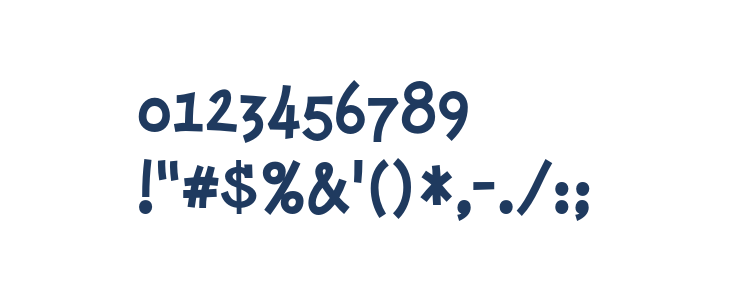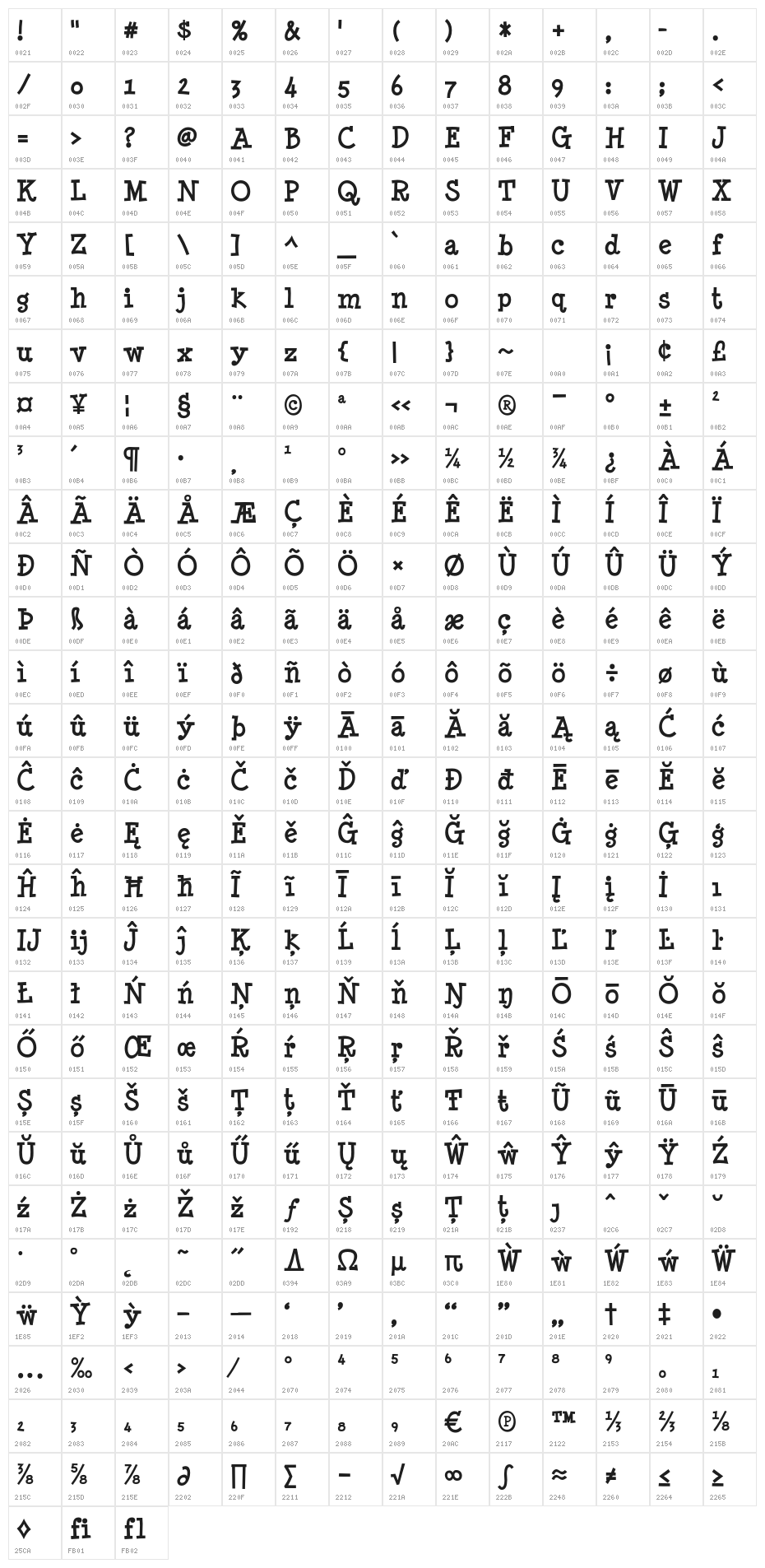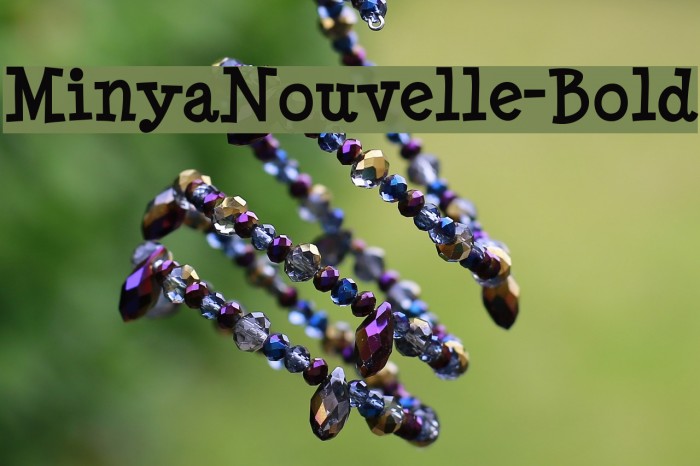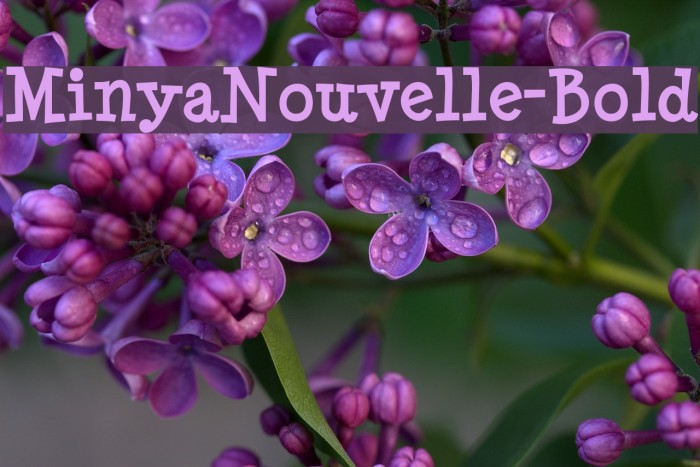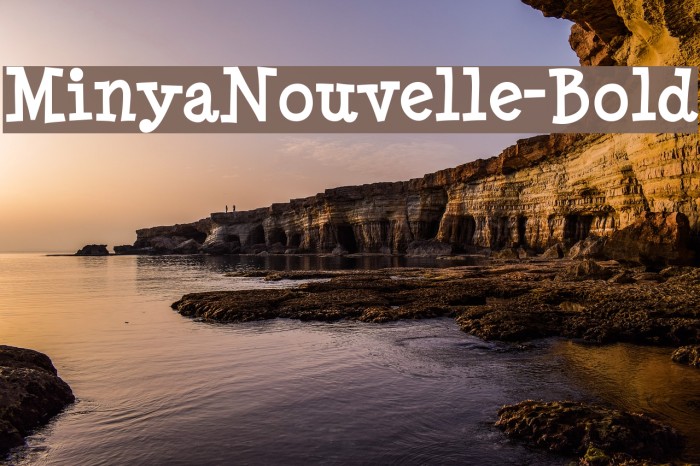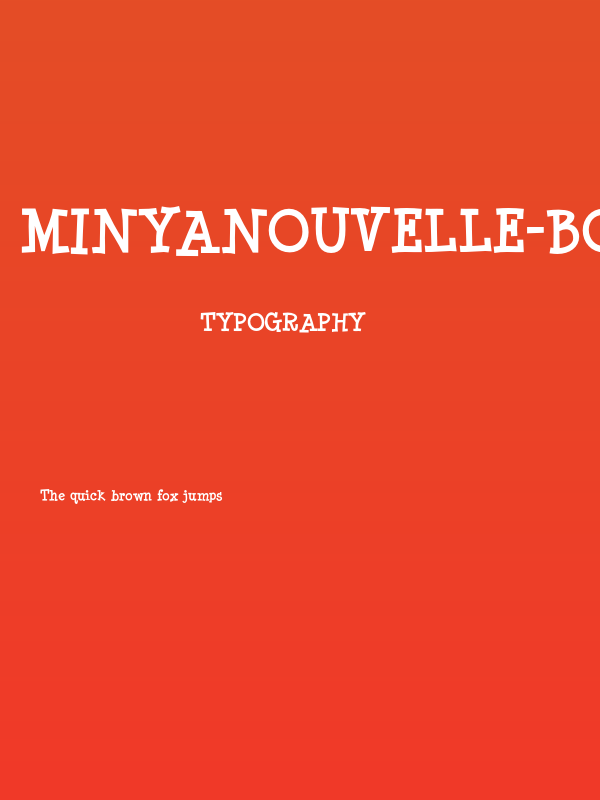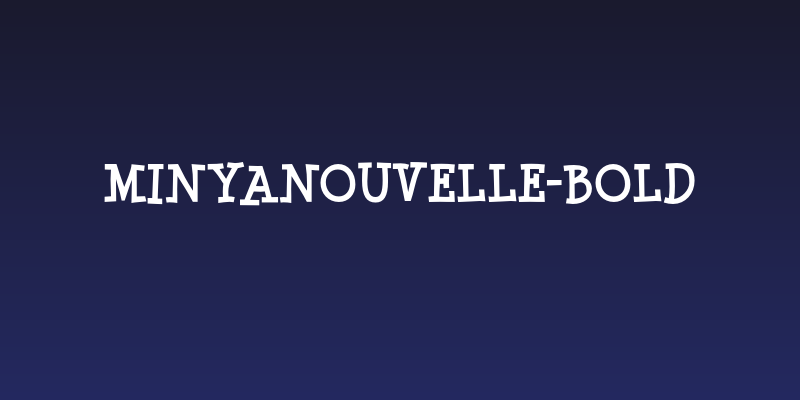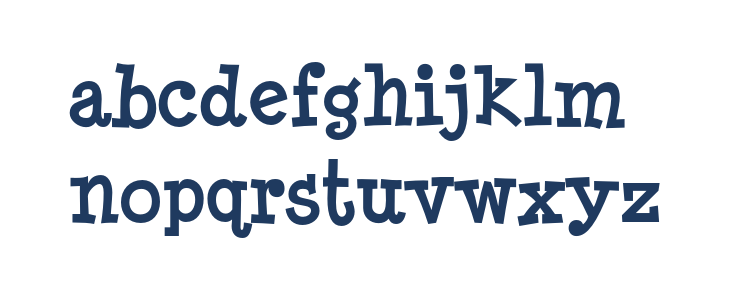
MinyaNouvelle-Bold Font
MinyaNouvelle-Bold Description
This font exhibits a playful and dynamic style with a bold presence. The characters have a whimsical, slightly irregular form that adds a sense of movement and energy. The uppercase letters are robust and commanding, while the lowercase letters maintain a consistent and harmonious flow. The numerals are distinct and easily readable, complementing the overall aesthetic. Special characters are creatively designed, enhancing the font's unique personality. This font is well-suited for projects that require a bold and lively touch, making it ideal for creative and artistic applications.
| Proposed Projects | Ideal for children's books, playful branding, posters, and creative design projects. |